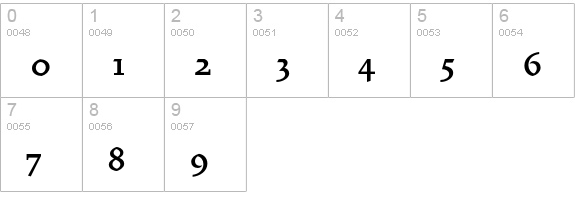
VendettaBold Font Details
VendettaBold is a striking and powerful font that exudes confidence and strength. With its bold and commanding letterforms, this font demands attention and makes a bold statement. Designed for those who dare to be different, VendettaBold is perfect for creating eye-catching headlines, poster designs, and branding projects. This font combines sharp edges with smooth curves, creating a harmonious balance between edginess and elegance. Its unique character shapes give it a distinct and memorable appearance, making it stand out among other fonts in its category. But what sets VendettaBold apart is not just its visually stunning design, but also its accessibility. This font is freely available to download at FontsMarket.com, making it accessible to designers, artists, and creatives from all walks of life. Whether you are a professional designer working on a client project or a student exploring your creativity, VendettaBold is at your disposal, waiting to elevate your design work to new heights. So why wait? Unleash the power of VendettaBold and make a lasting impression with your designs. Download it for free at FontsMarket.com and let your creativity soar.